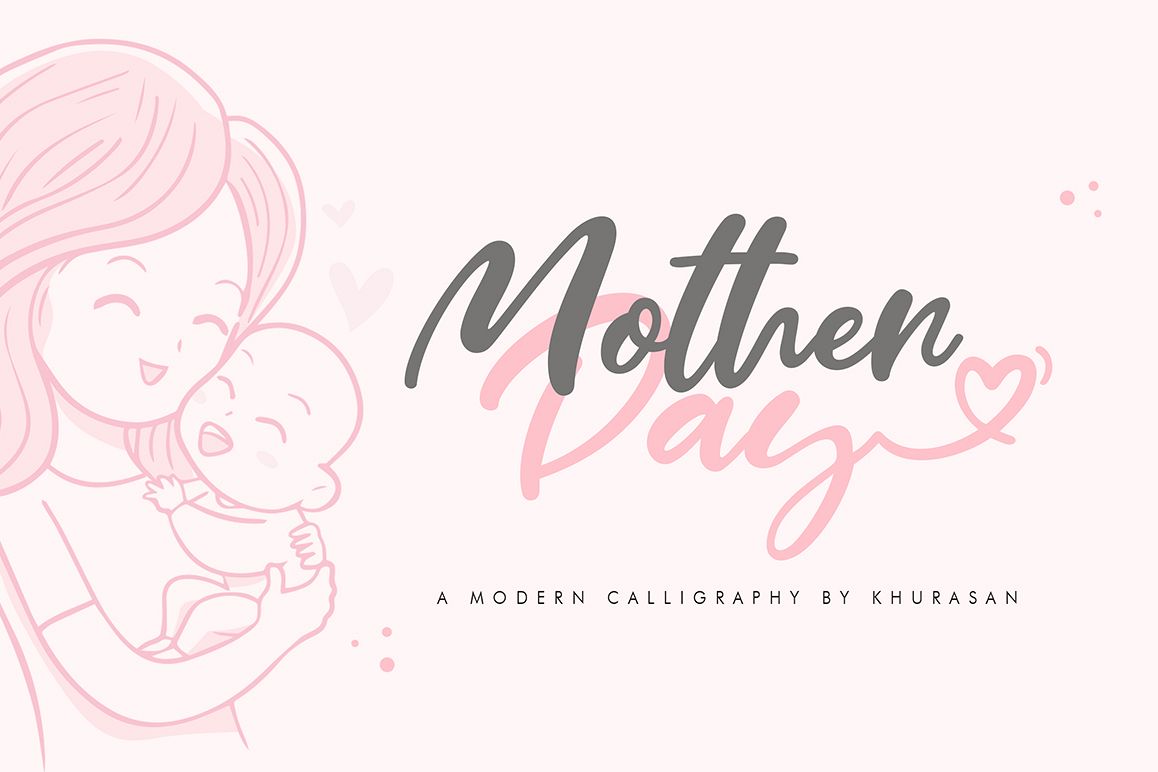
Mother Day font a modern script typeface with cheerful theme for your fun project. Mother Day script font suitable for logo, branding, greeting card, poster and any design that you create.
Features:- OpenType Features
- Numeral & Punctuation
- Multilingual support ÀÁÂÃÄÅÇEÈÉÊËIÌÍÎÏÑOØÒÓÔÕÖUÙÜÚÛWYÝŸŸÆ
- Alternative Stylish